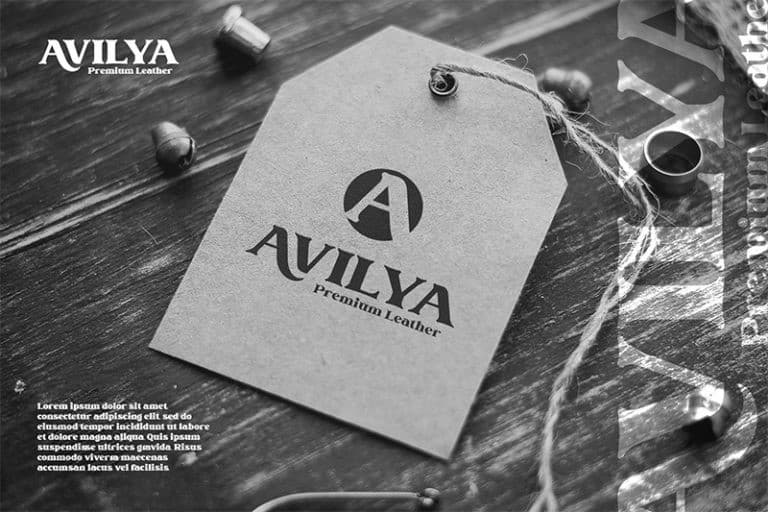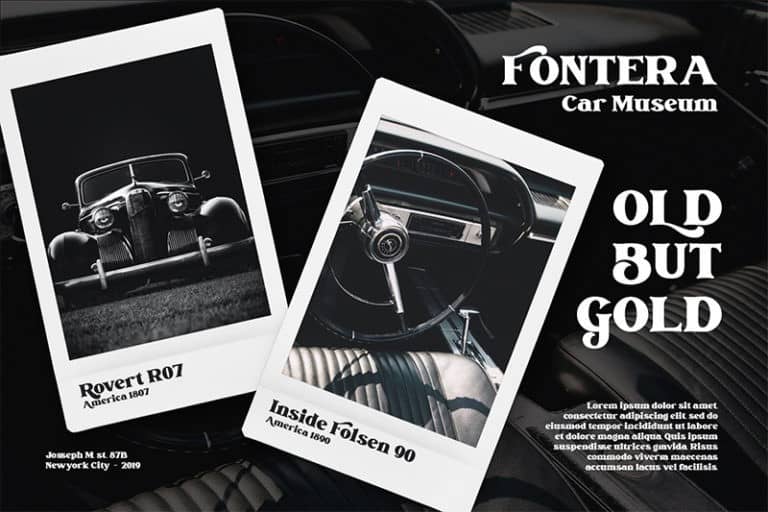
Vintage Rovery Serif Font a modern serif font created by Din Studio with alternatives, ligatures, and multilingual support. This typeface with elegant style looks very interesting for loads of different projects and promotions. It is perfect to be used on your website, for your social media branding, Pinterest banners, printed products, and more!